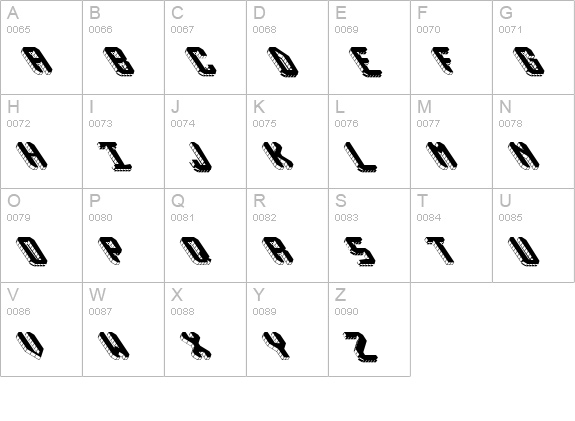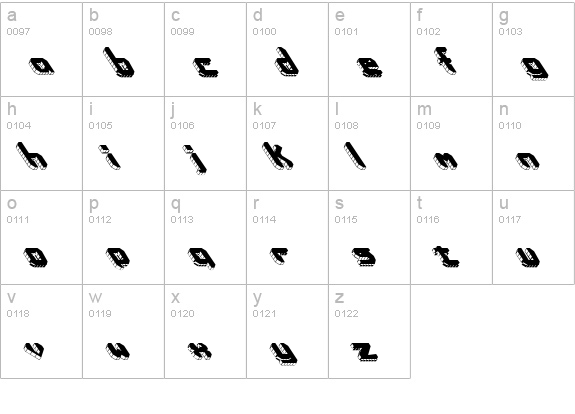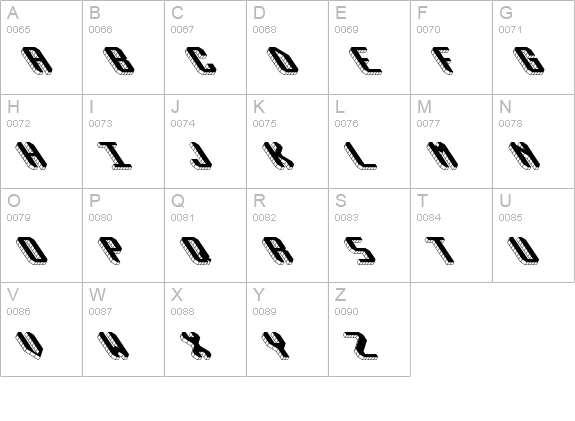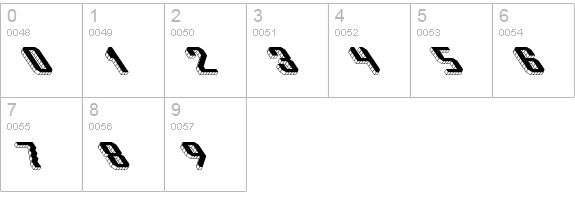
Block Tilt BRK font is a modern and bold typeface that exudes a sense of strength and sophistication. Its unique design features sharp angles and clean lines, giving a contemporary edge to any project it is used in. The blocky letterforms of Block Tilt BRK make a powerful statement, perfect for headlines, logos, and display purposes. What sets Block Tilt BRK font apart is not just its striking appearance, but also the fact that it is available for free download at FontsMarket.com. This means that you can add this eye-catching font to your design arsenal without breaking the bank. Whether you are a professional designer looking to elevate your work or a hobbyist seeking to add a touch of style to your projects, Block Tilt BRK font is a versatile choice that won't cost you a penny. Download it today and start creating impactful designs with this dynamic typeface.